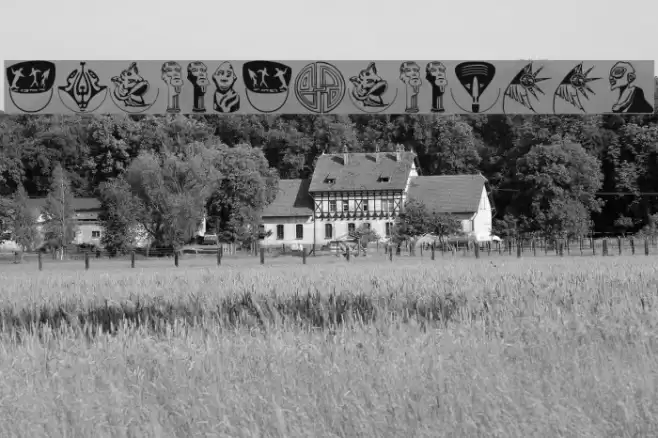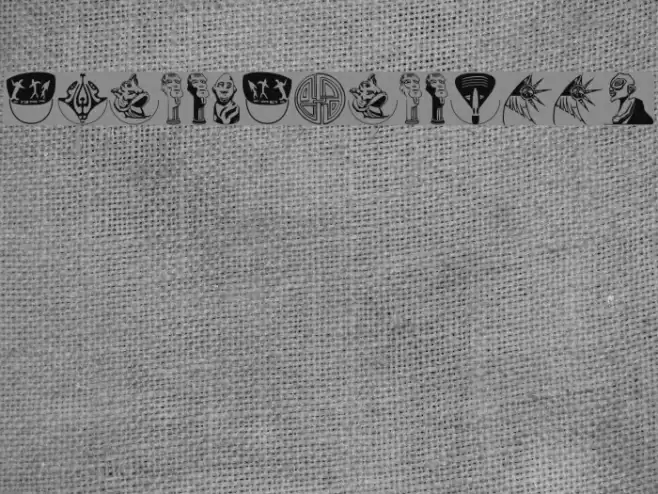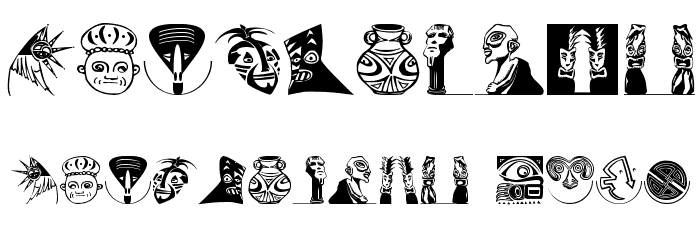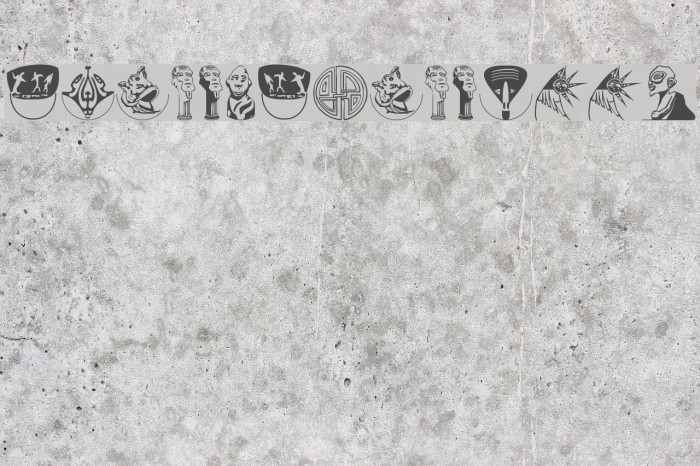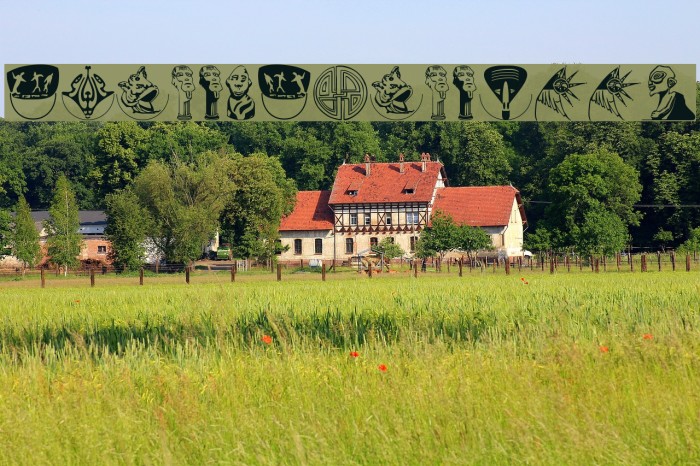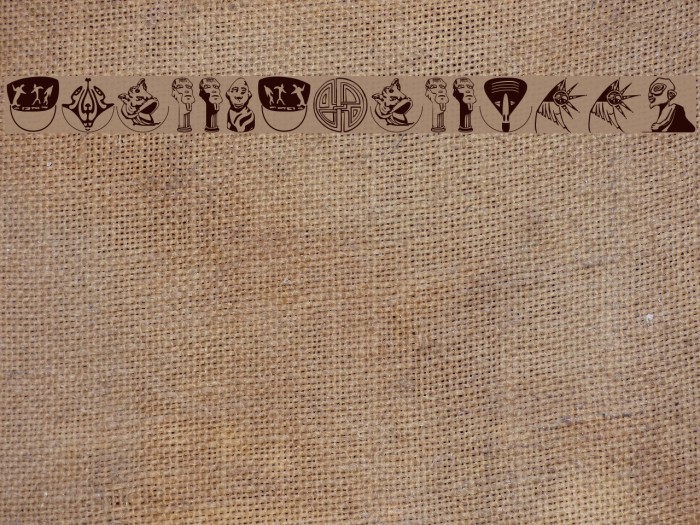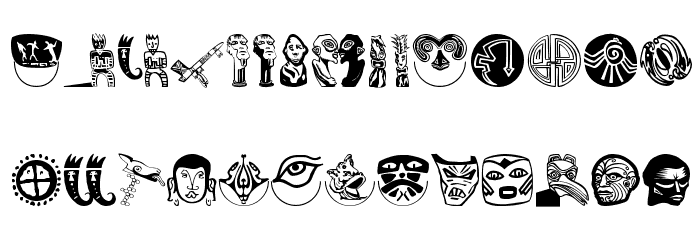
ArteFakte2007 Font
ArteFakte2007 Description
This font is a highly decorative and artistic collection of characters, each designed with intricate and unique illustrations. The characters are not traditional letters but rather a series of stylized images that resemble ancient artifacts or tribal art. Each character is enclosed in a circular or rounded shape, adding to the cohesive aesthetic of the set. The designs are bold and striking, featuring a mix of abstract and representational elements, such as faces, masks, and geometric patterns. This font is more of an art piece than a functional typeface, making it ideal for creative projects that require a distinctive and eye-catching visual element.
A decorative font featuring artistic, tribal-inspired illustrations within circular shapes from Uncategorized fonts.
- Proposed Projects: Ideal for art projects, posters, album covers, and any design work that benefits from a unique and artistic touch.
- Use Case: Logos, Posters, Artistic Projects